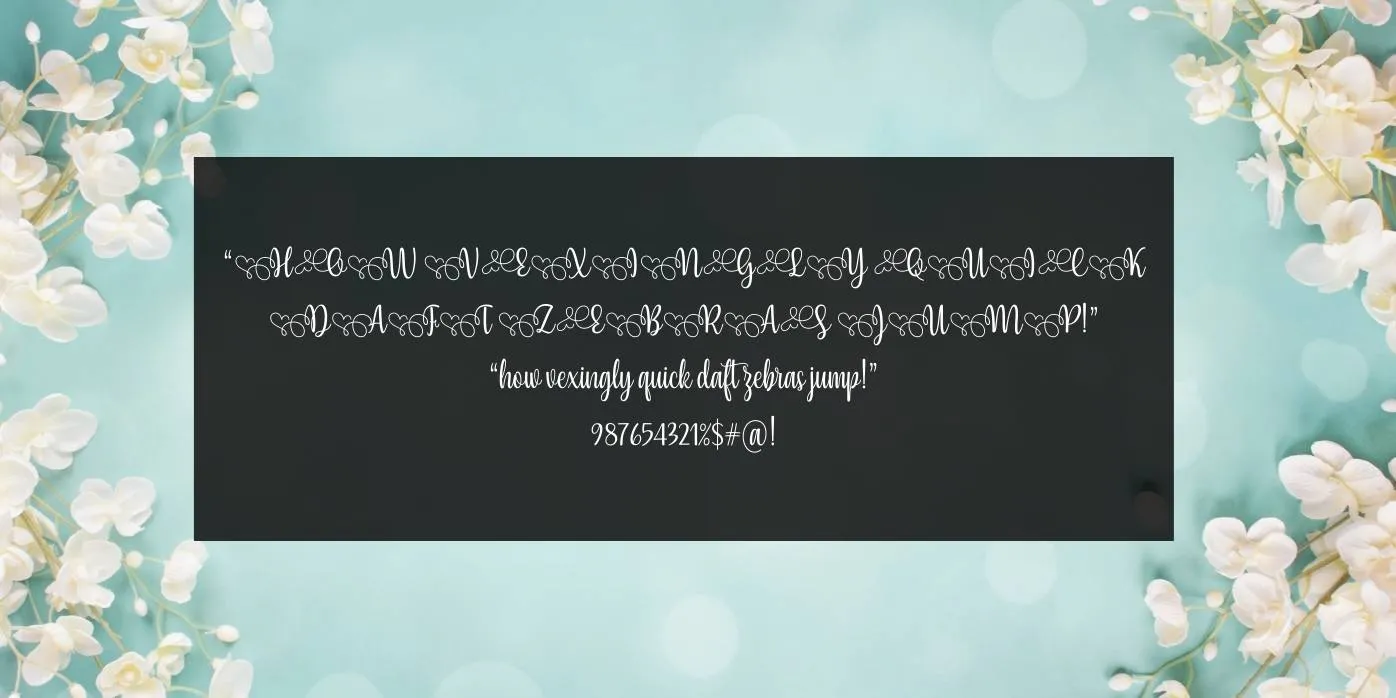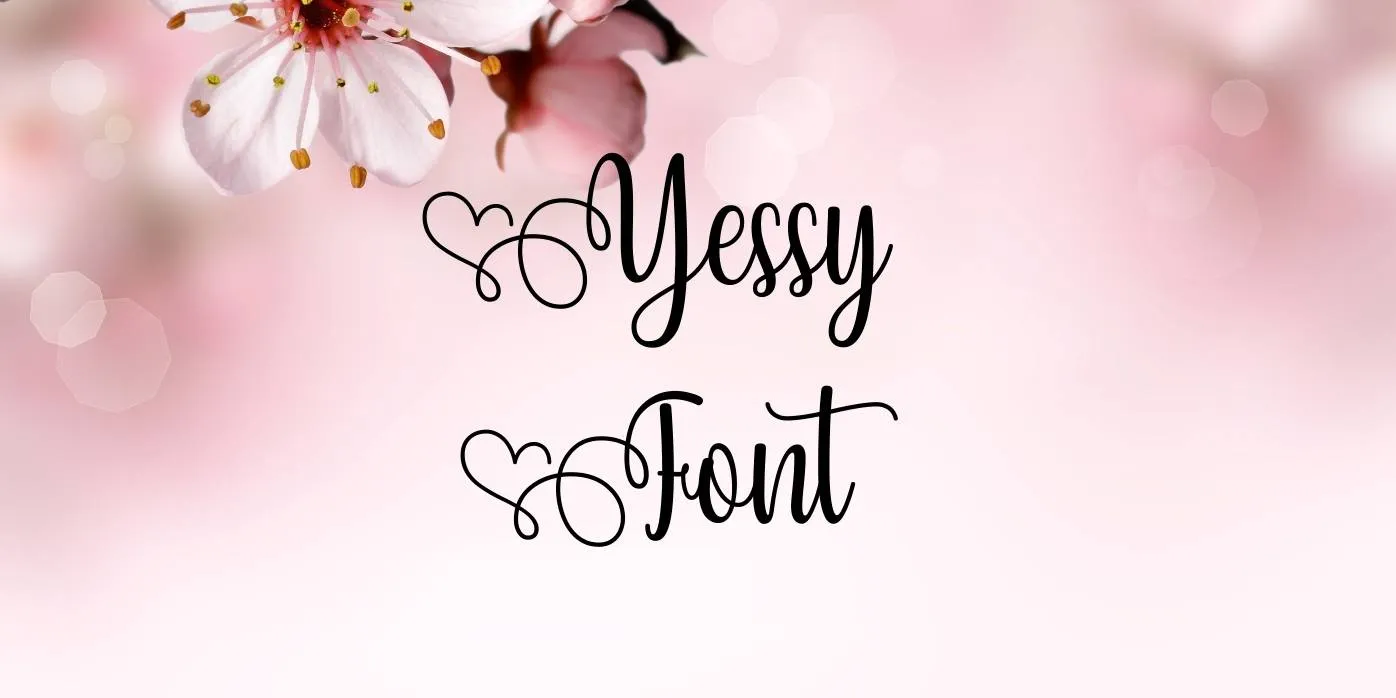
Yessy Font
Yessy Font is a very popular and classic typeface developed by Situjuh Nazara. This family belongs to the Calligraphy font family. It has a very unique style that makes it perfect for both formal and informal settings. Yessy Font supports a wide range of languages including Latin, Cyrillic, and Greek.
This gorgeous font is highly readable and perfect for long paragraphs of text. It is also very well suited for headlines and titles. It is best for use in Adobe and Canva. For more advanced uses, you need to use midnight font by making a combination with this family.
The tall x-height and wide counters give this font an elegant look that allows it to stand out from other typefaces in its class. If you are looking for a versatile and classic typeface, then Yessy Font is the perfect choice for your designs. This typeface will provide the facility of an online generator tool.